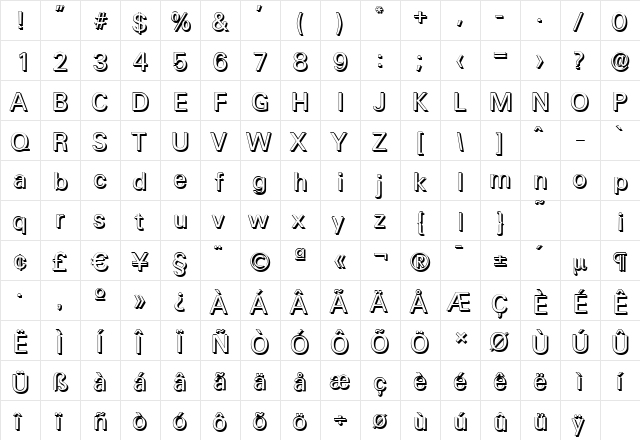
UltimateShadow Regular
Design Context for UltimateShadow Typeface
UltimateShadow brings ornamental detail and strong personality to headlines and identities, where visual impact matters more than quiet functionality.
Font Pairing: Pair with a clean neutral sans-serif for body copy to let UltimateShadow's character lead without overwhelming the composition.
Pro Tip: Use UltimateShadow exclusively at display sizes — it was designed to be seen, not read at length. Let a neutral companion handle body copy.